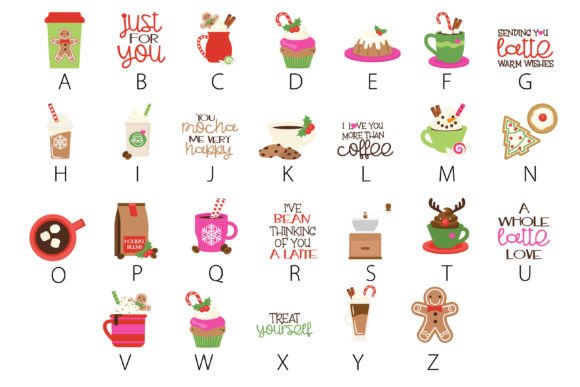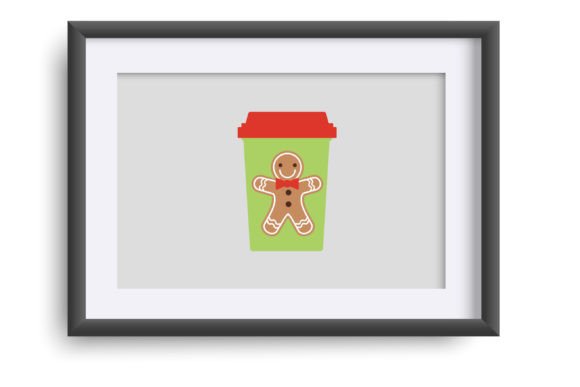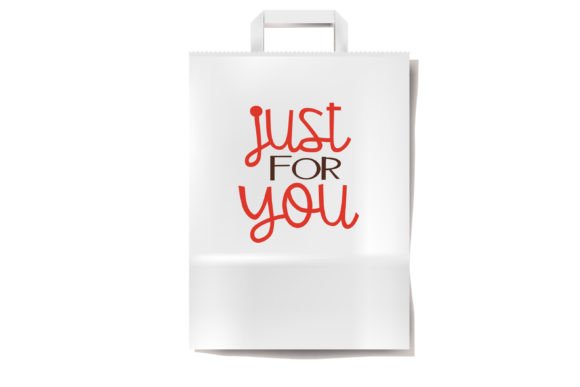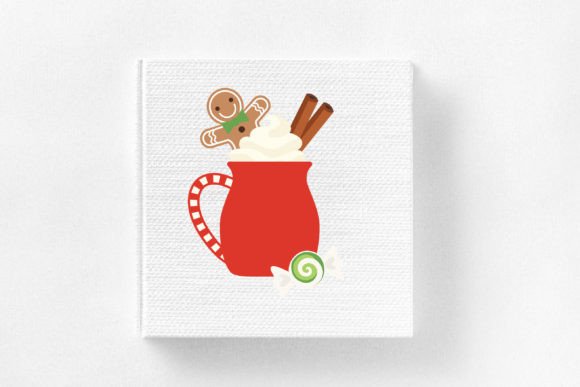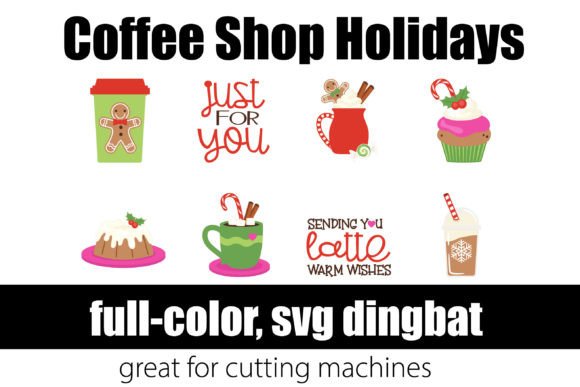
Coffee Shop Holidays Font: A Whimsical Christmas Treat for Designers and Crafters
Are you a designer or crafter looking for a unique and festive font to add some holiday cheer to your projects? Look no further than the Coffee Shop Holidays Font, a charming dingbat font that features Christmas-themed coffee and treats. This OpenType full-color (SVG) font is perfect for card-making, vinyl, and cutting machines, and is sure to bring a smile to your customers’ faces.
What is the Coffee Shop Holidays Font?
The Coffee Shop Holidays Font is a whimsical dingbat font that features a variety of Christmas-themed coffee and treat designs. From steaming cups of coffee to festive holiday cookies, this font has everything you need to add a touch of holiday magic to your projects. The font is designed to be used in a variety of applications, including card-making, vinyl, and cutting machines.
Key Features of the Coffee Shop Holidays Font
- OpenType full-color (SVG) font: This font features full-color SVG designs that can be used in compatible programs.
- Christmas-themed designs: The font features a variety of Christmas-themed coffee and treat designs, perfect for the holiday season.
- Perfect for card-making, vinyl, and cutting machines: This font is ideal for designers and crafters who want to add a touch of holiday cheer to their projects.
Tips for Using the Coffee Shop Holidays Font
- Use in card-making projects: Add a touch of holiday cheer to your card-making projects with this whimsical font.
- Create festive vinyl designs: Use the font to create festive vinyl designs for gifts, decorations, and more.
- Make custom holiday gifts: Use the font to create custom holiday gifts, such as personalized mugs and ornaments.
- Experiment with different colors and designs: Don’t be afraid to experiment with different colors and designs to make your projects truly unique.
Benefits of Using the Coffee Shop Holidays Font
- Add a touch of holiday cheer to your projects: This font is sure to bring a smile to your customers’ faces with its whimsical holiday designs.
- Stand out from the crowd: With its unique and festive designs, this font is sure to help you stand out from the crowd.
- Perfect for holiday-themed projects: This font is perfect for any holiday-themed project, from Christmas cards to festive decorations.
The Coffee Shop Holidays Font is a must-have for designers and crafters looking to add a touch of holiday cheer to their projects. With its whimsical Christmas-themed coffee and treat designs, this font is perfect for card-making, vinyl, and cutting machines. Whether you’re looking to create festive holiday cards, custom gifts, or decorations, this font is sure to bring a smile to your customers’ faces.